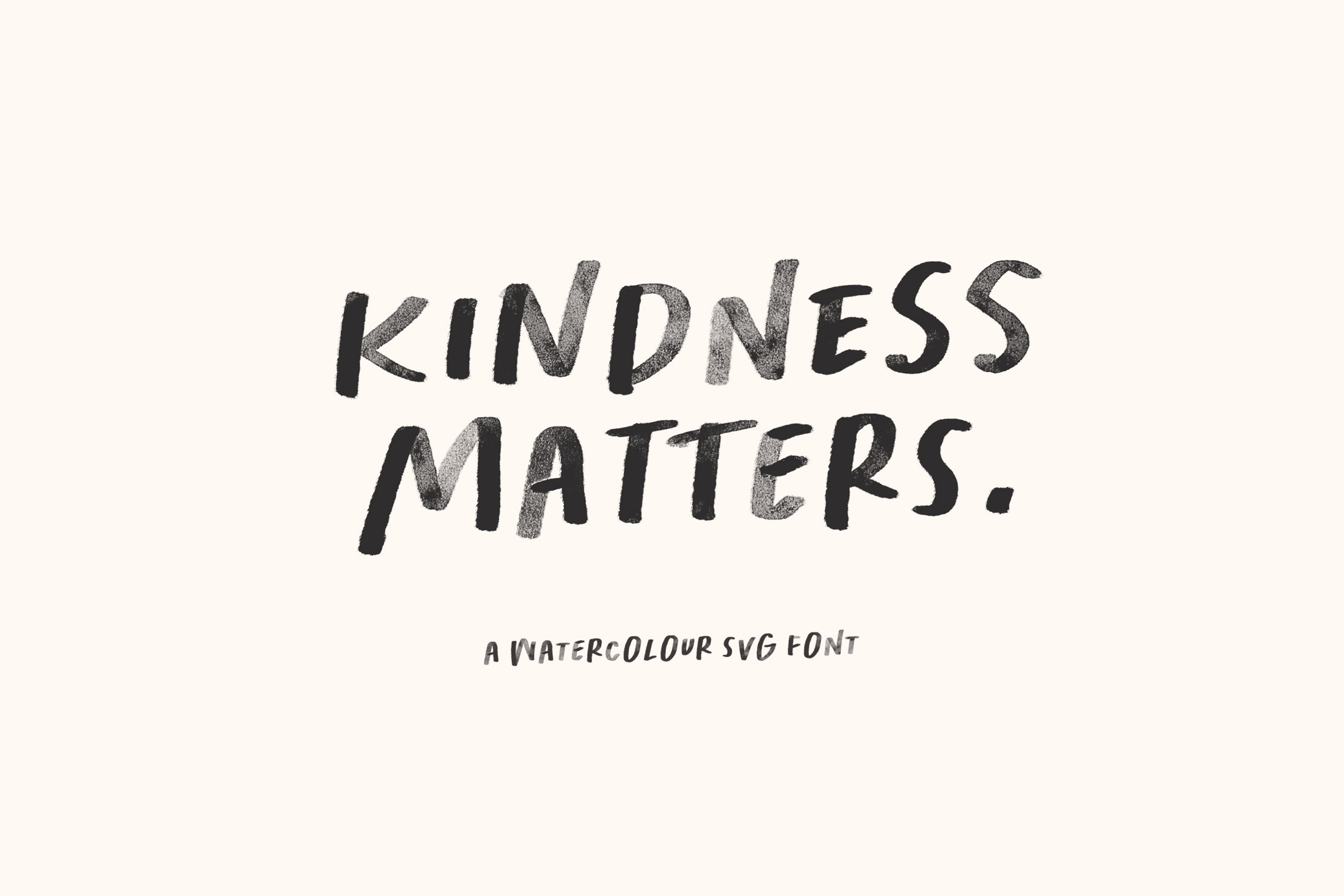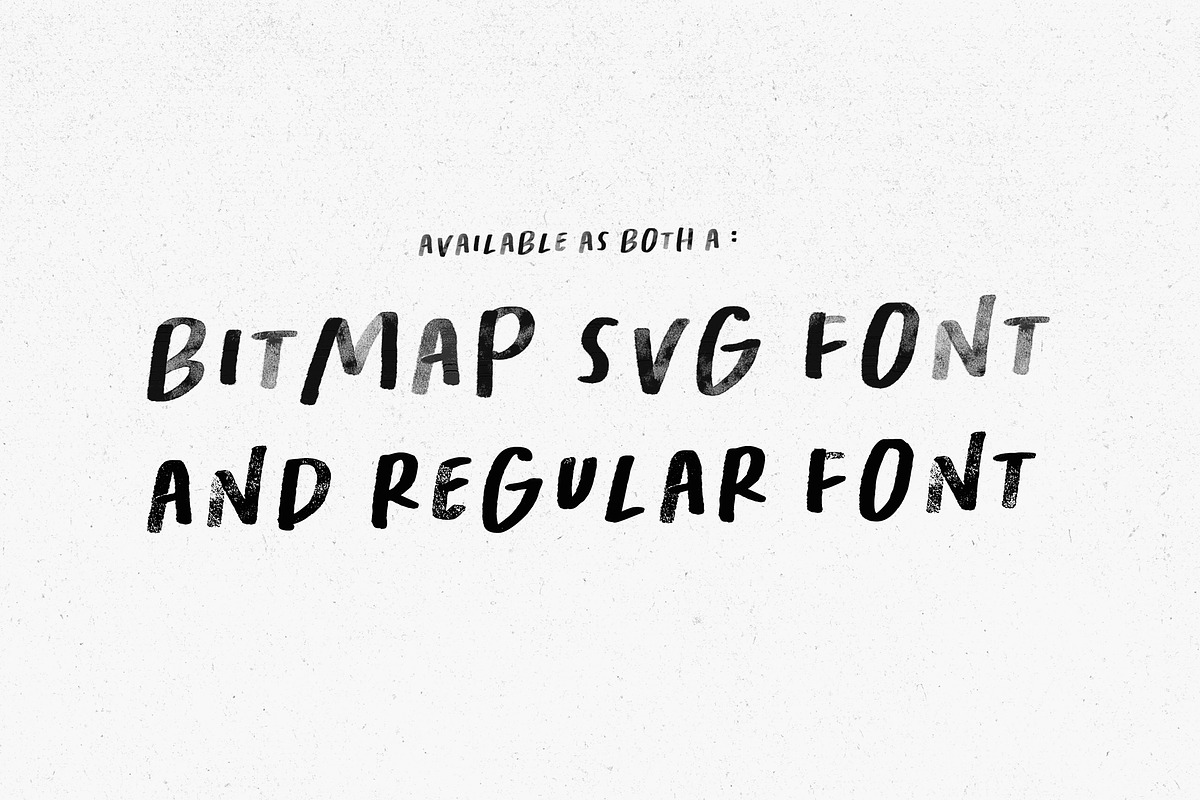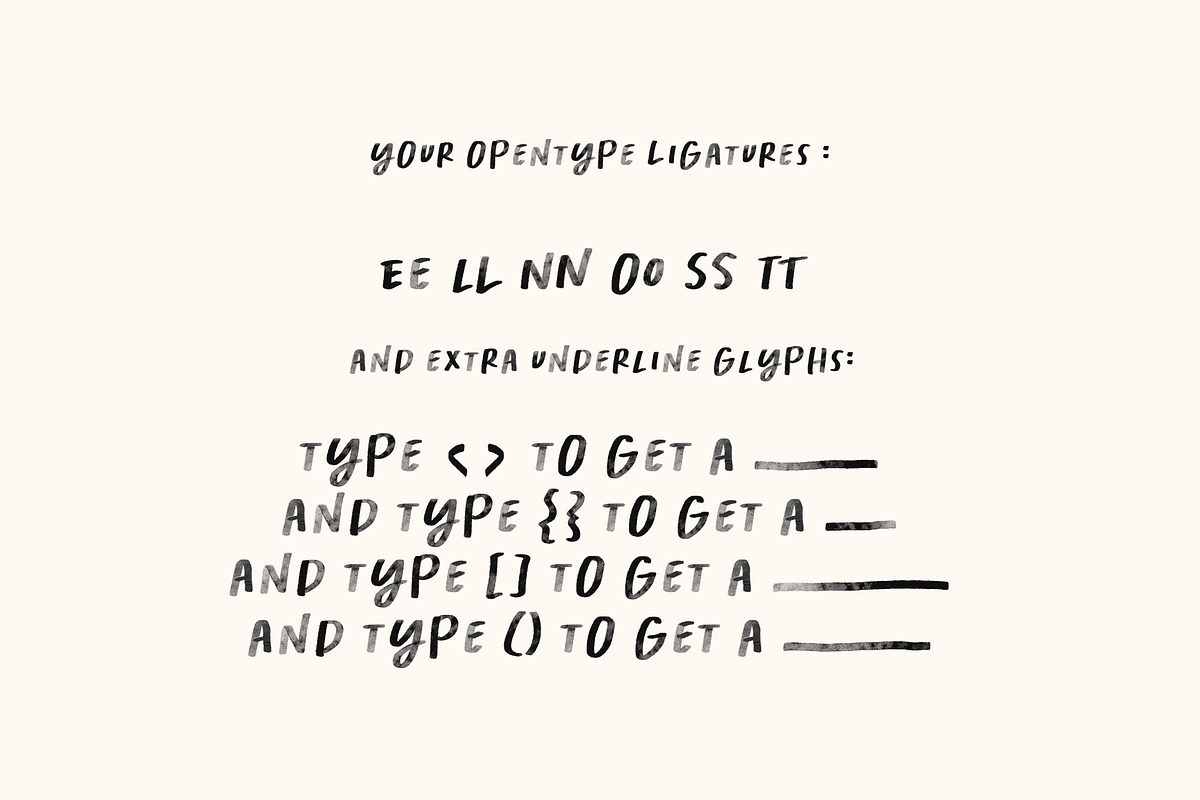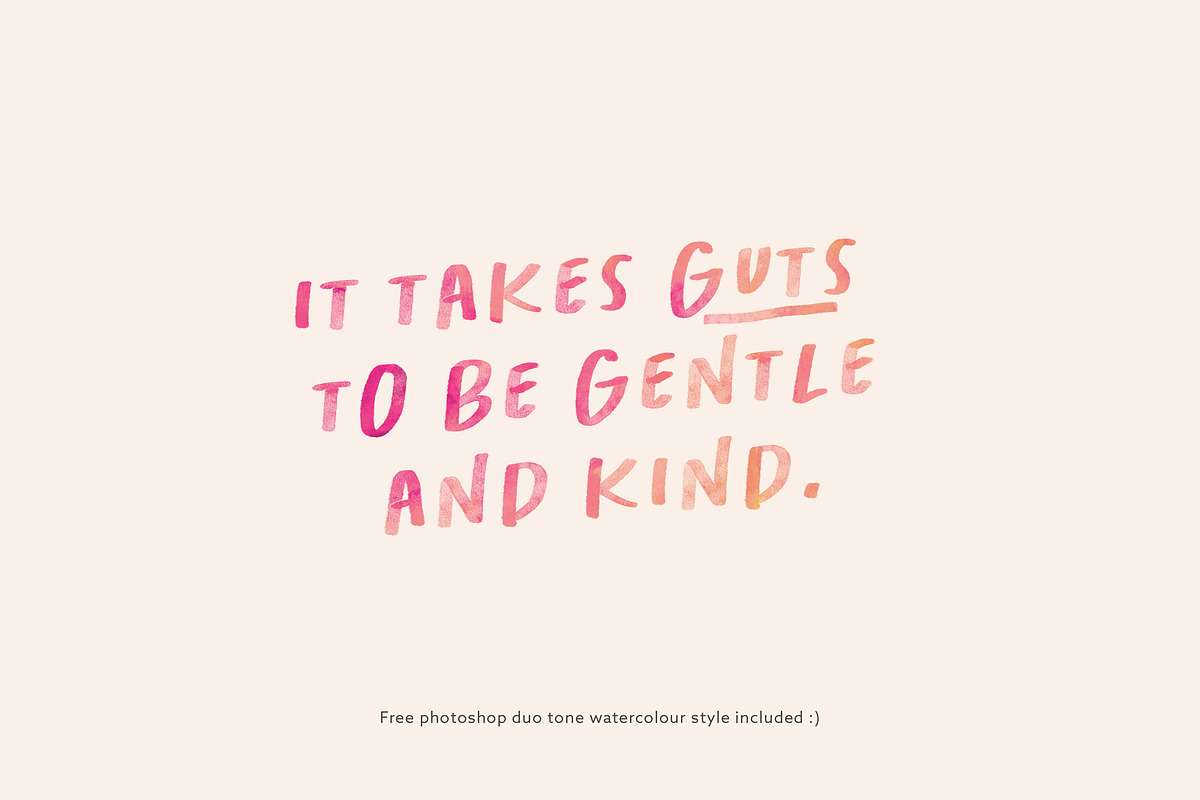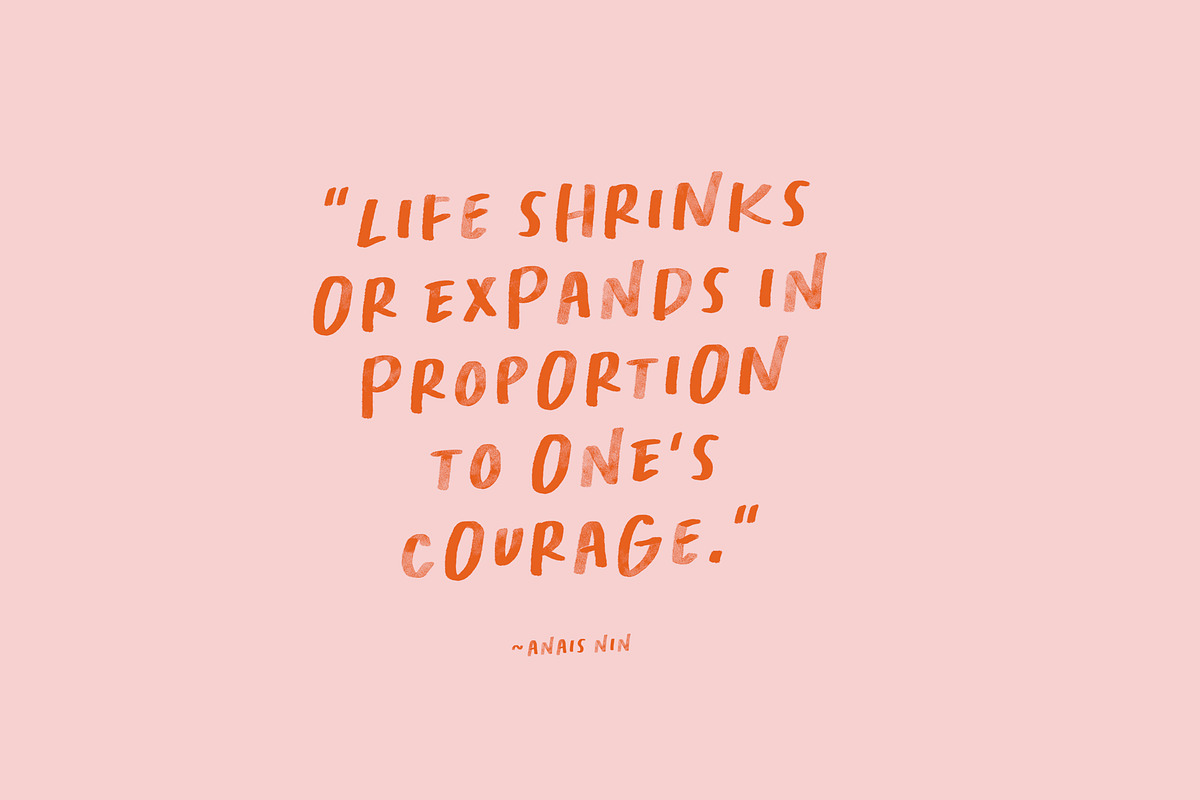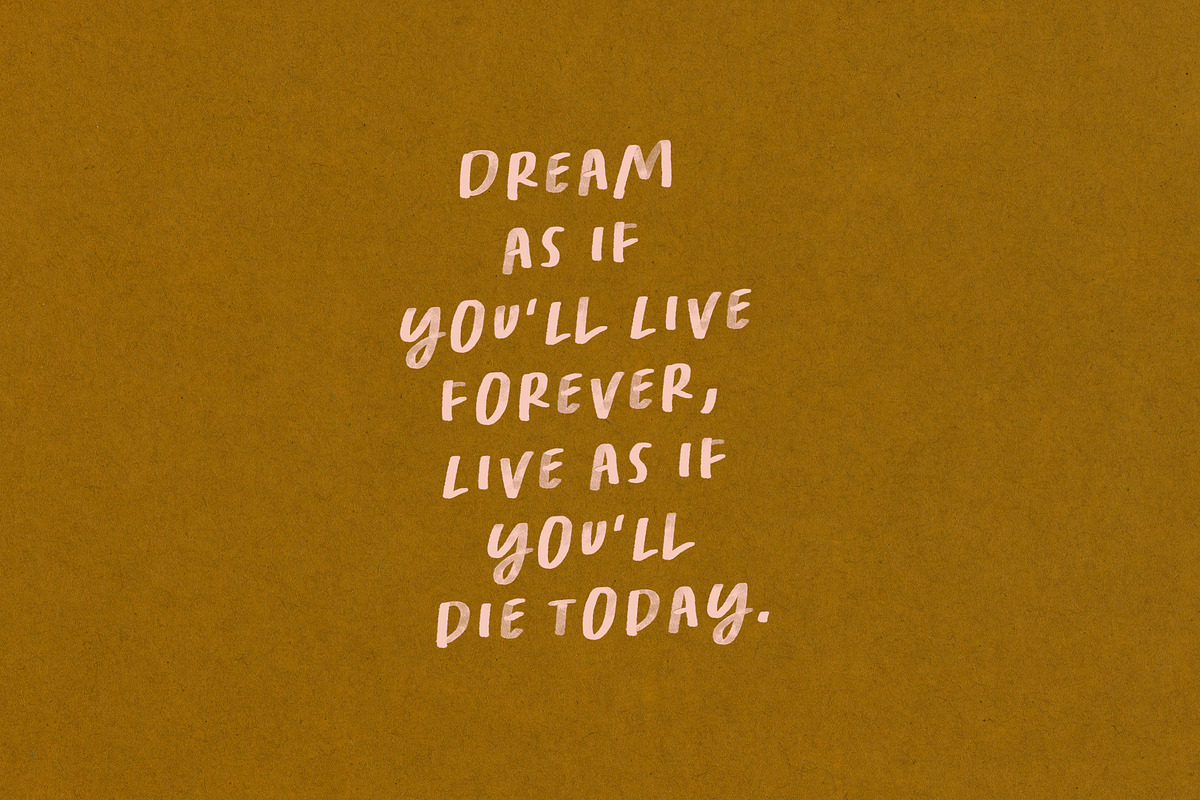
Kindness Matters Font : SVG, Regular
Kindness matters...it really does. Here is hoping that every time you use this font, it serves as a little reminder for you :)
Kindness Matters is a quirky All-caps SVG font - with built-in watercolour texture that looks so very real. Perfect for quotes, posters, flyers, social media posts and so much more :)
- 4 Handy 'underlines' are also included in the Glyphs set - you can access them via the Glyphs panel in Photoshop or by making sure you have your Ligatures on ( in your Character panel) and type out and of the four brackets on your keyboard : (), {}, [], and
- Also included are two bonus Photoshop Duotone Watercolour styles - one click to add real watercolour overlay to your SVG font which really makes it pop :)